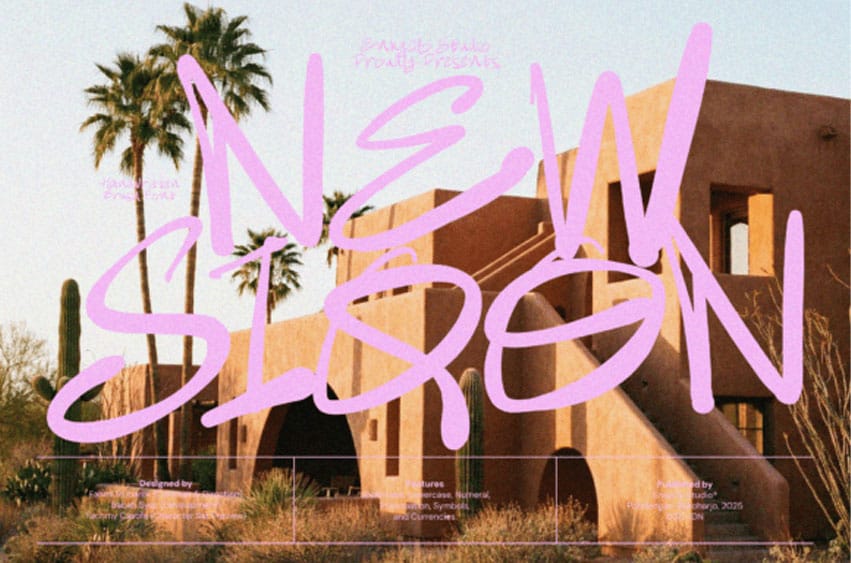
New Siqon Font On the lookout for a bespoke typeface to uplift your design portfolio? Look no further than NEW SIQON, a bold brush font radiating raw energy and rendering a spirited charm.
Unveiling an extraordinary dynamic, NEW SIQON leaps to prominence across posters, headlines, and sport-inspired visuals, injecting each character with an unparalleled intensity and motion. Use it to carve out audacious branding, engineer an electrifying layout, or spin visual narratives with an urban vibe.
NEW SIQON is ideally suited for a host of creative projects, including athletic posters, arresting headlines, audacious branding or logos, city-centric designs, event promotion materials, creative agency visual content, gripping social media graphics, editorial layouts, and product packaging that draws the eye.
The brilliance of NEW SIQON extends beyond the conventional, making it your definitive font choice for fearless design undertakings.